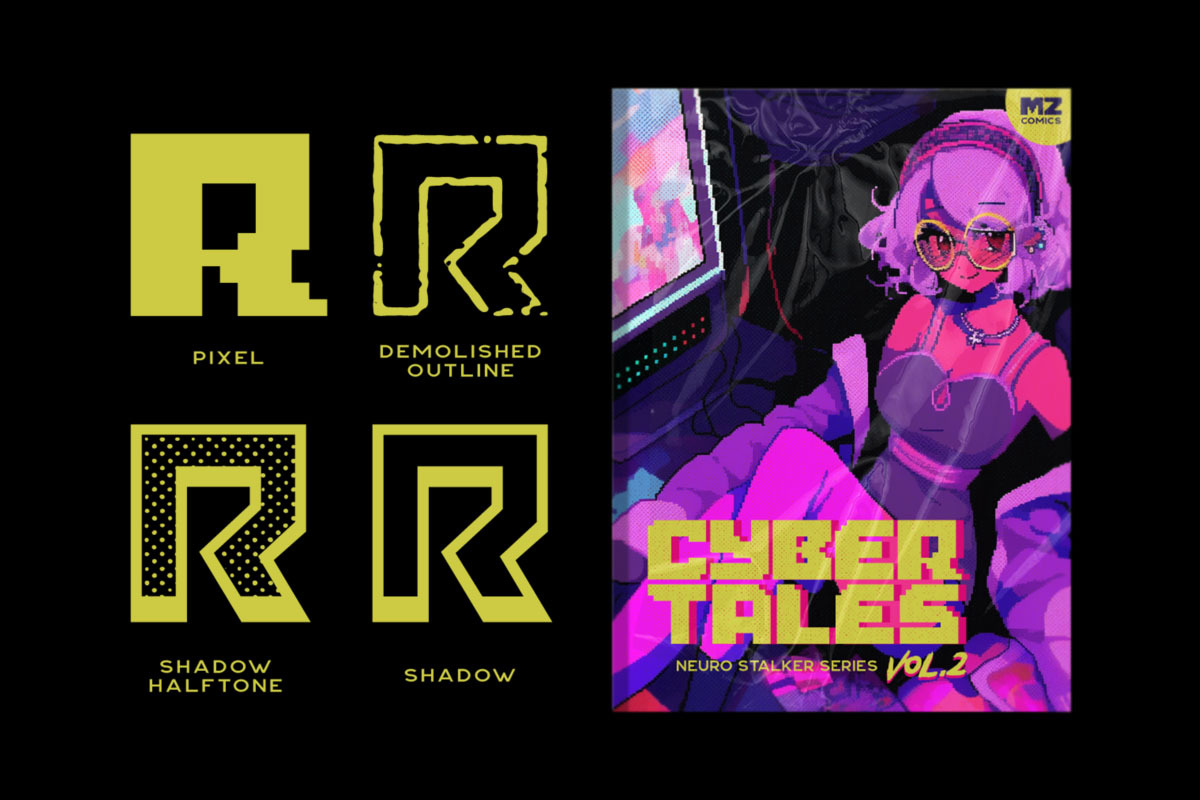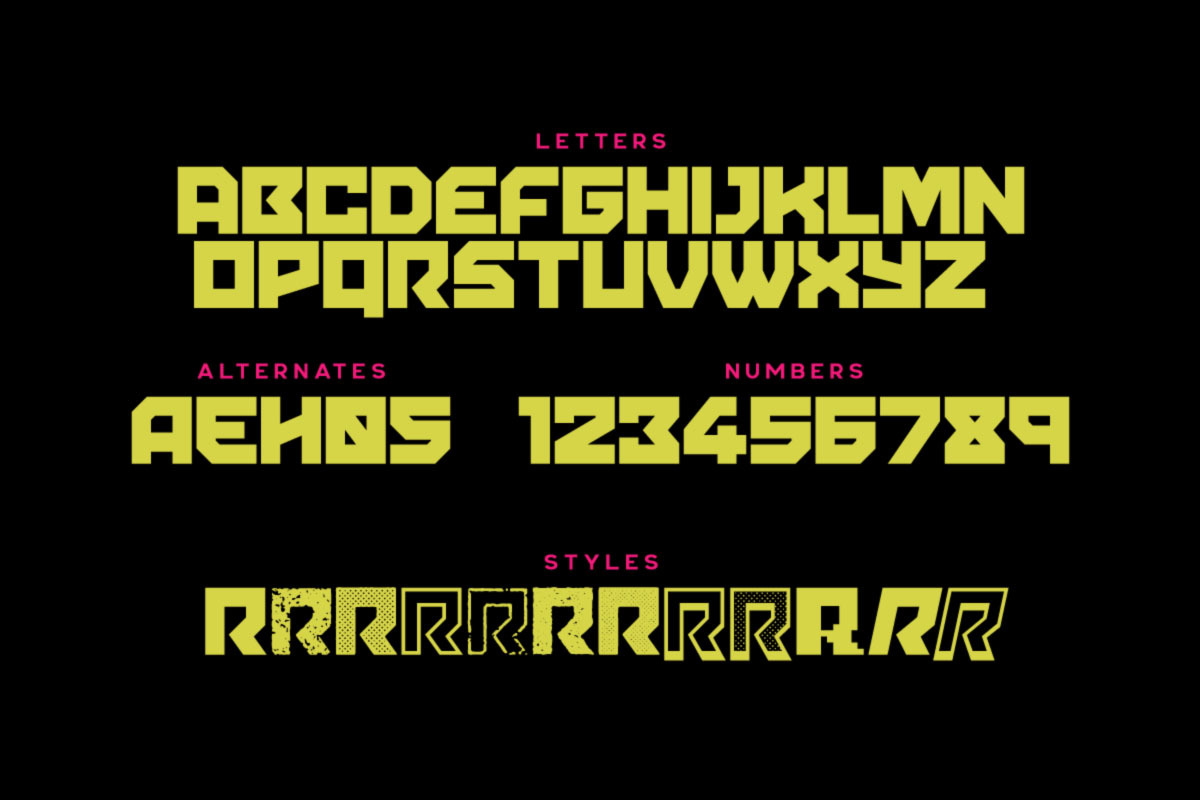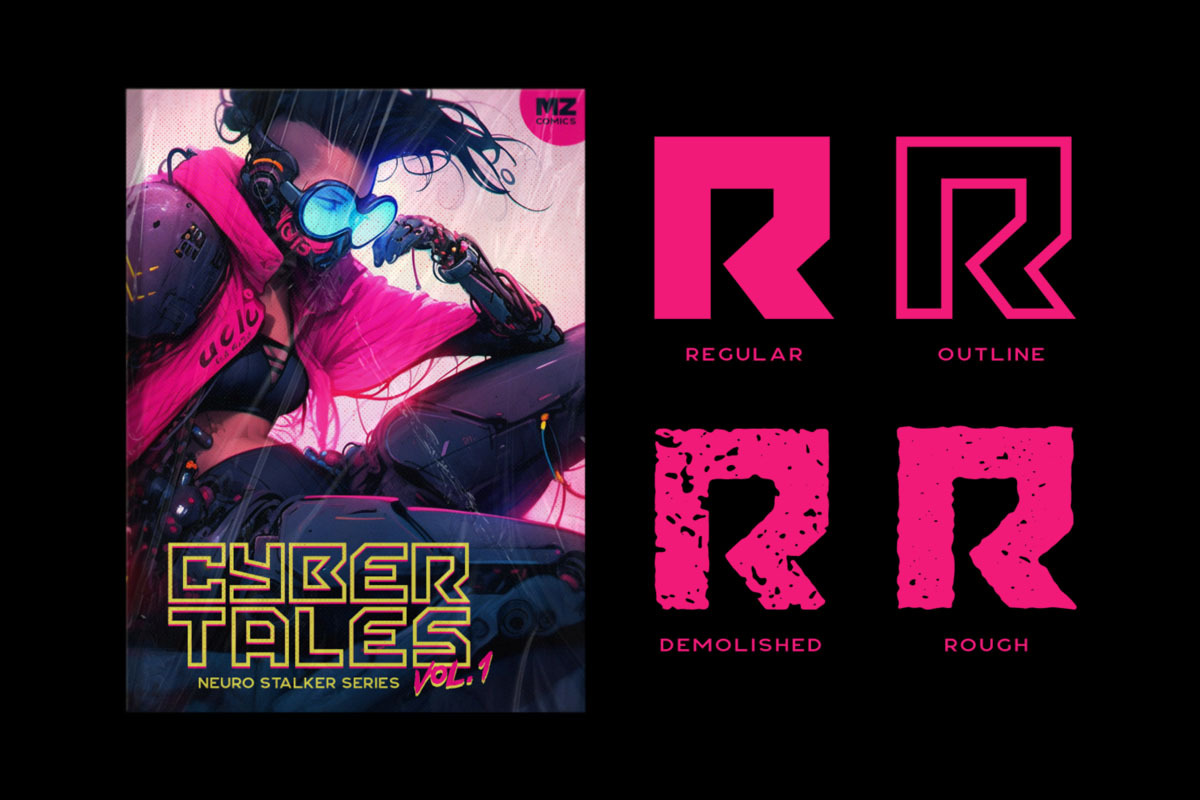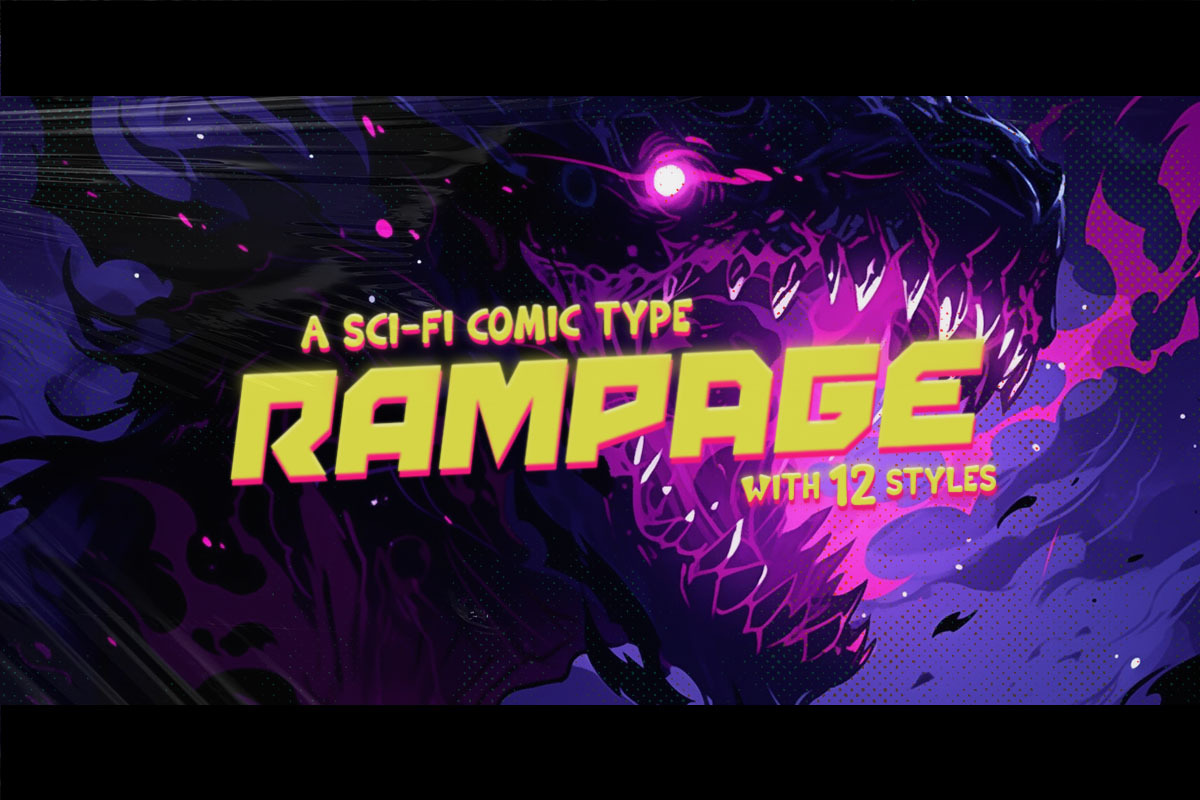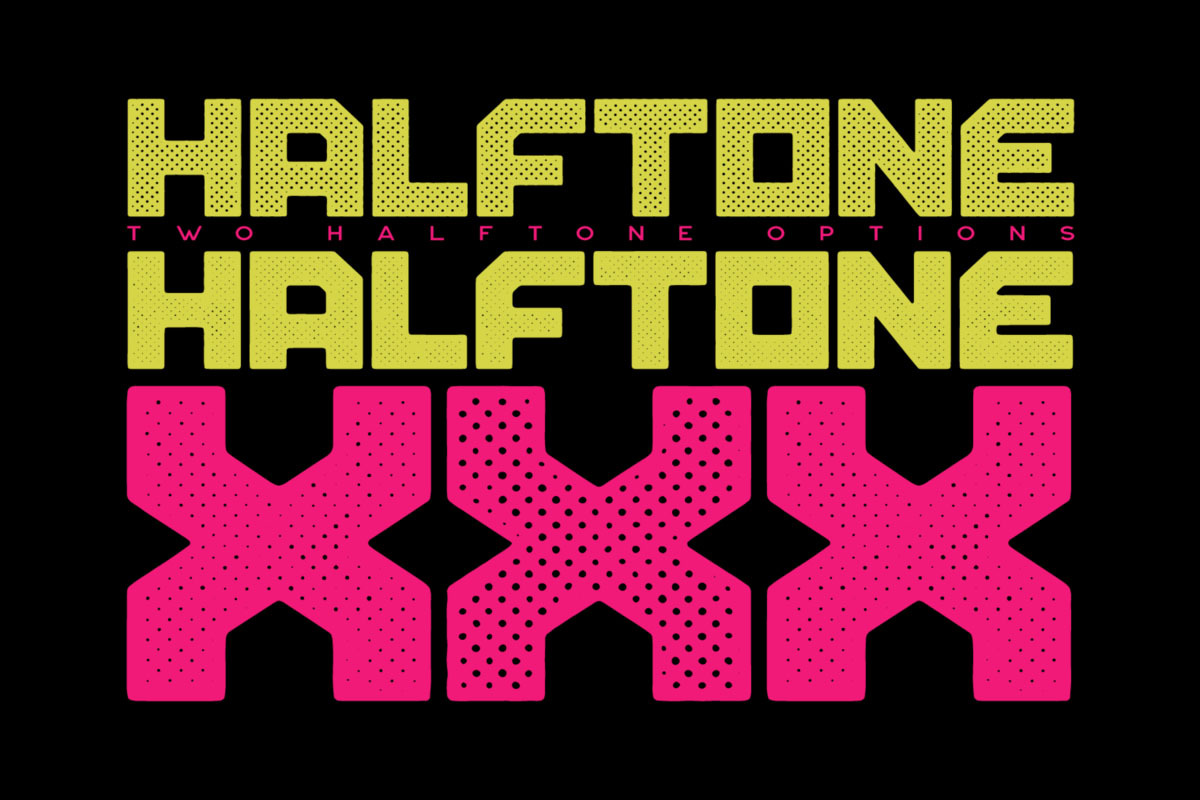
Rampage Typeface
Rampage is a loud and versatile display font family. It includes 12 styles and has a few alternate characters which can be toggled via Caps Lock.